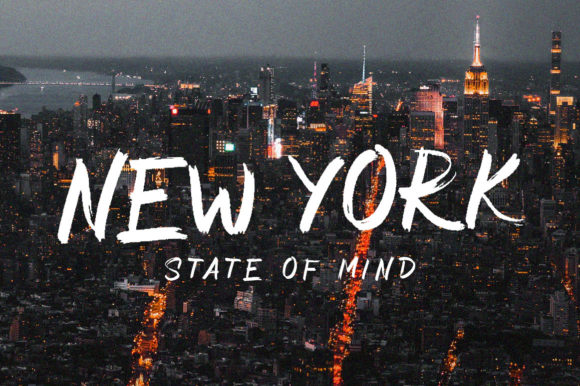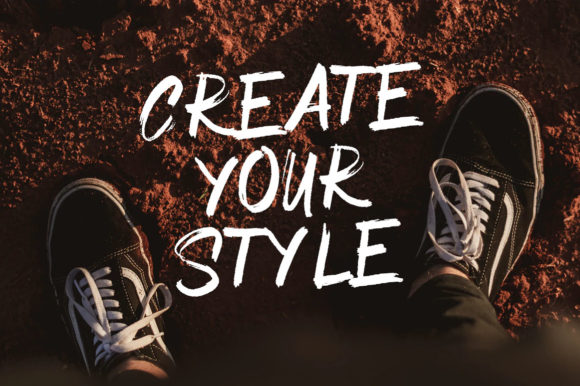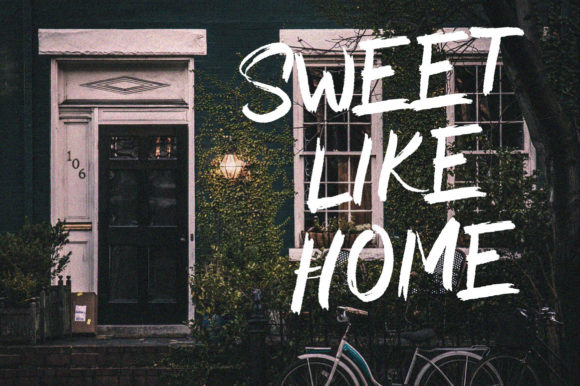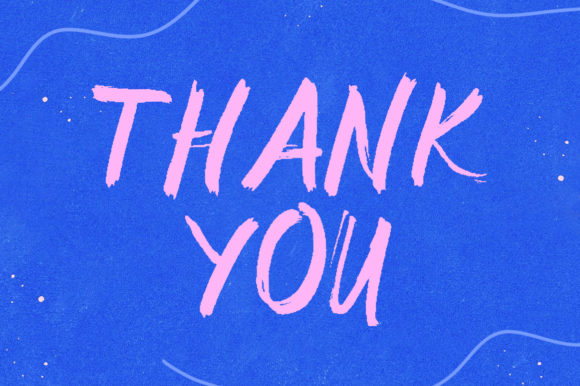
Introducing Amor Delova Font: The Perfect Casual Display Font for Designers and Crafters
Are you a designer or crafter looking for a font that can add a personal touch to your projects? Look no further than Amor Delova Font. This casual, fun display font is created by using a brush pen, giving it a unique and handcrafted feel. In this article, we’ll explore the features and benefits of Amor Delova Font, and how it can be the perfect fit for all of your logos, branding, social media, and crafty DIY projects.
What is Amor Delova Font?
Amor Delova Font is a display font that is designed to make a statement. Its casual and fun style is perfect for projects that require a personal touch. The font is created by using a brush pen, which gives it a unique and handcrafted feel. The result is a font that is both elegant and playful, making it perfect for a wide range of projects.
Features of Amor Delova Font
So, what makes Amor Delova Font so special? Here are some of its key features:
• Handcrafted with a brush pen: Amor Delova Font is created by using a brush pen, which gives it a unique and handcrafted feel.
• Casual and fun style: The font has a casual and fun style that is perfect for projects that require a personal touch.
• Perfect for display text: Amor Delova Font is designed for display text, making it perfect for logos, headings, and titles.
• Easy to read: Despite its casual style, Amor Delova Font is easy to read, even at small sizes.
Benefits of Using Amor Delova Font
So, why should you use Amor Delova Font for your projects? Here are some of the benefits:
• Adds a personal touch: Amor Delova Font adds a personal touch to your projects, making them stand out from the crowd.
• Perfect for crafty DIY projects: The font is perfect for crafty DIY projects, such as handmade cards, invitations, and crafts.
• Great for social media: Amor Delova Font is perfect for social media graphics, such as Instagram posts, Facebook posts, and Twitter headers.
• Easily customizable: The font is easily customizable, allowing you to adjust the size, color, and style to fit your needs.
How to Use Amor Delova Font
• Use it for headings and titles: Amor Delova Font is perfect for headings and titles, adding a personal touch to your projects.
• Pair it with other fonts: The font pairs well with other fonts, such as sans-serif fonts, to create a unique and interesting look.
In conclusion, Amor Delova Font is a casual, fun display font that is perfect for designers and crafters. Its handcrafted feel and casual style make it perfect for adding a personal touch to your projects. With its ease of use and customizability, Amor Delova Font is a great choice for logos, branding, social media, and crafty DIY projects. So, why not give it a try and see how it can elevate your designs?